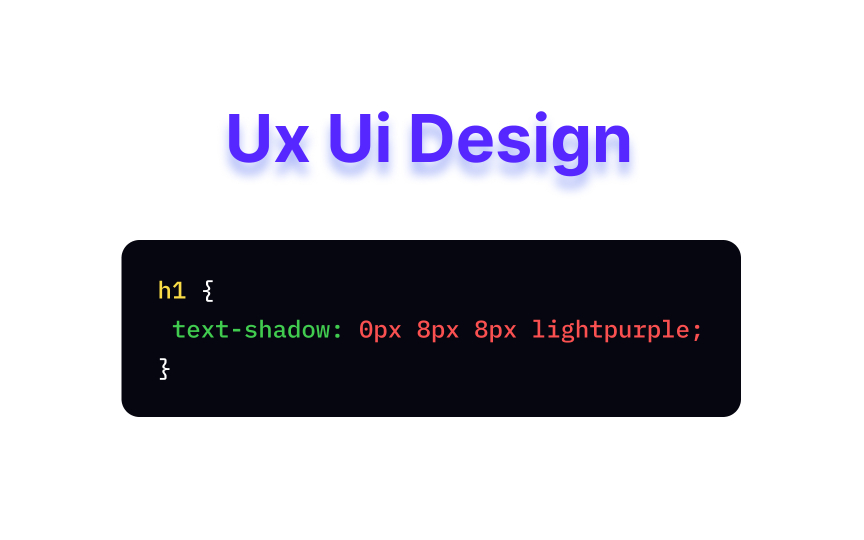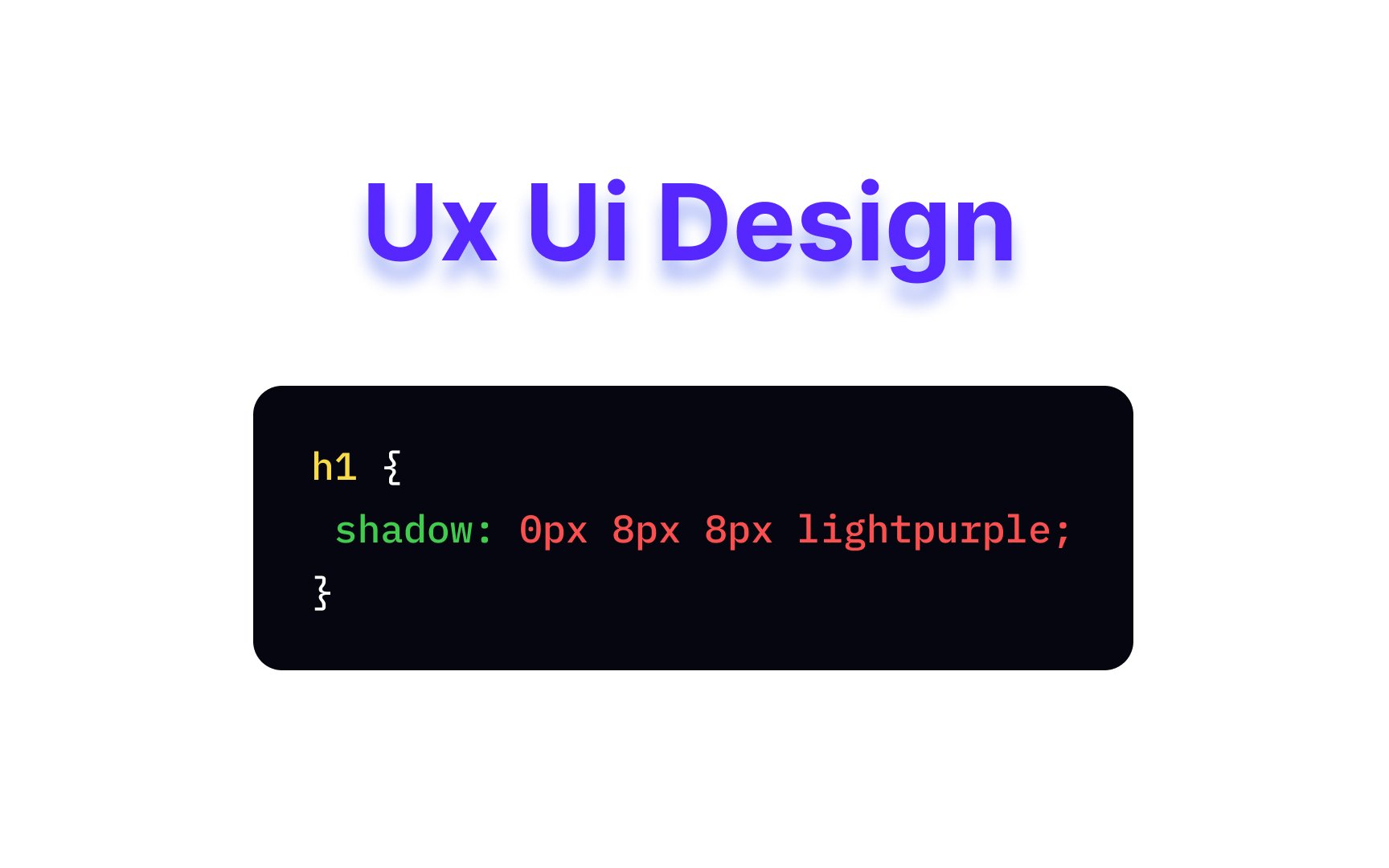
CSS text-shadow property
CSS allows you to make your text more interesting by adding shadows. You can define what type of shadow you want with the text-shadow
property.
Each shadow can have up to 4 values:
In the example above, the heading has a light purple shadow with an 8px radius, an 8px vertical offset, and a 0px horizontal offset.